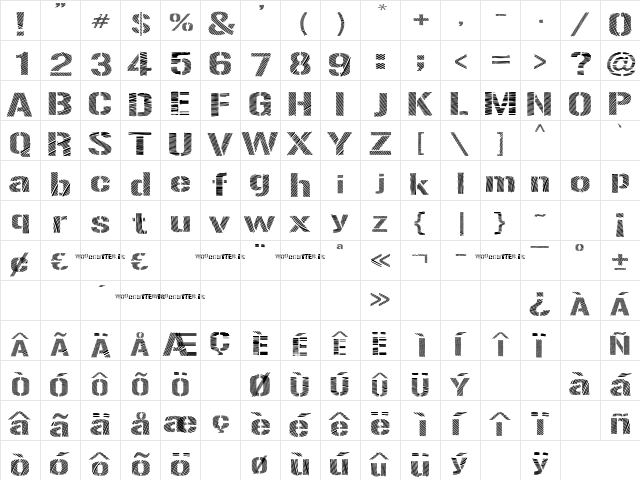
Woodcutter Optical Army Regular Free Font
Woodcutter Optical Army Regular
Design Context for Woodcutter Optical Army
Woodcutter Optical Army has the no-nonsense character of military stencilling and tactical signage, projecting authority and directness.
A strong choice for security brands, outdoor gear, and high-stakes visual communication.
Pro Tip: Try Woodcutter Optical Army in all-caps for the most authentic military signage feel. It pairs well with stark, minimal layouts and muted colour palettes.